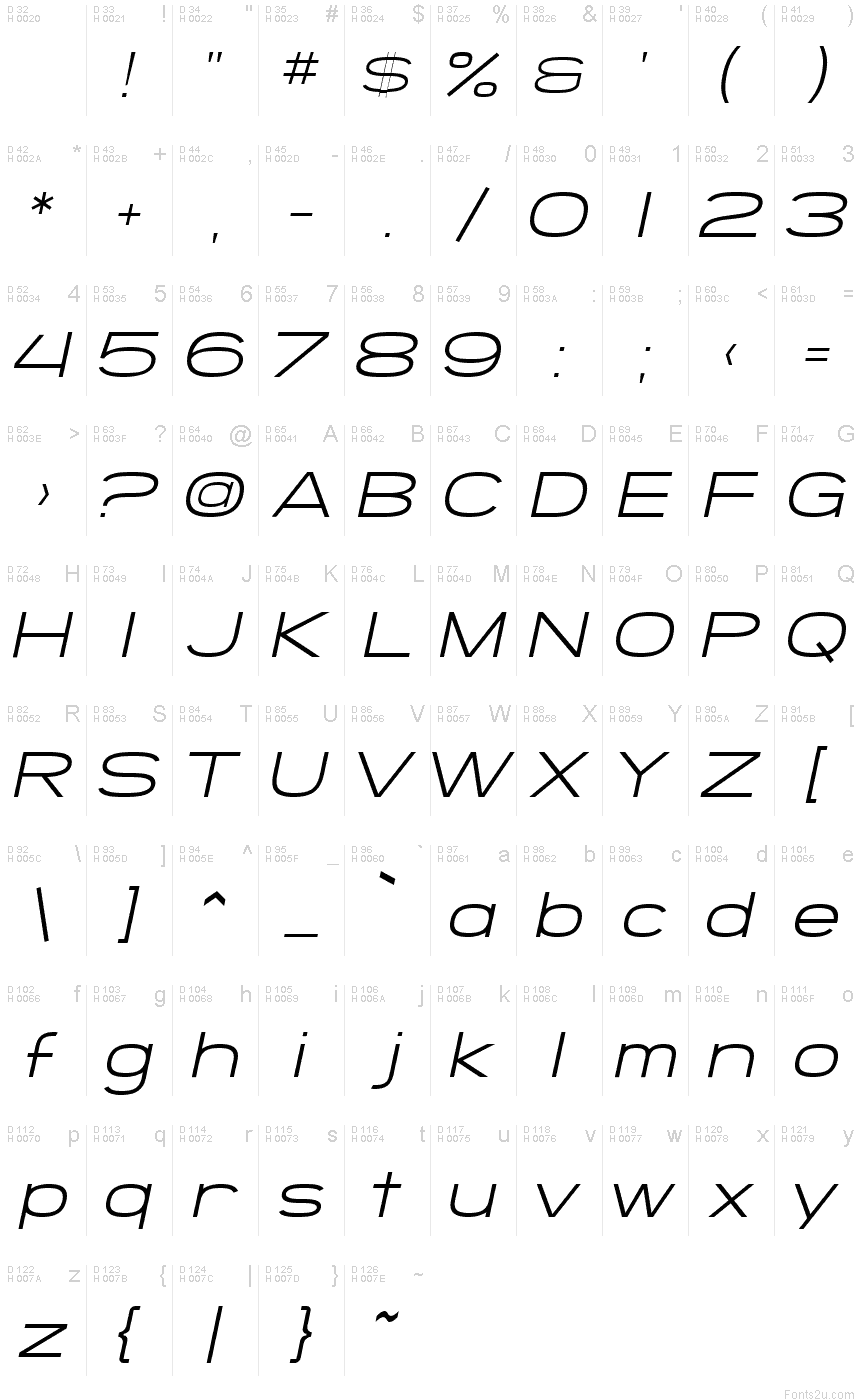
SF Grandezza Light Oblique
SF Grandezza Light Oblique, from ShyFonts Type Foundry, is a free oblique sans serif with a sleek early-2000s techno polish. The letters feel airy and streamlined, pairing very light strokes with broad, rounded curves and a forward lean that gives the alphabet a smooth, fast-moving rhythm.
It fits naturally in fashion branding, music packaging, app splash screens, poster titles, and magazine cover lines, where that lean and spacious drawing keep things feeling cool rather than severe. As a free font, it also works well for short title cards and wordmarks, especially when you want a soft futuristic note instead of a hard sci-fi edge.